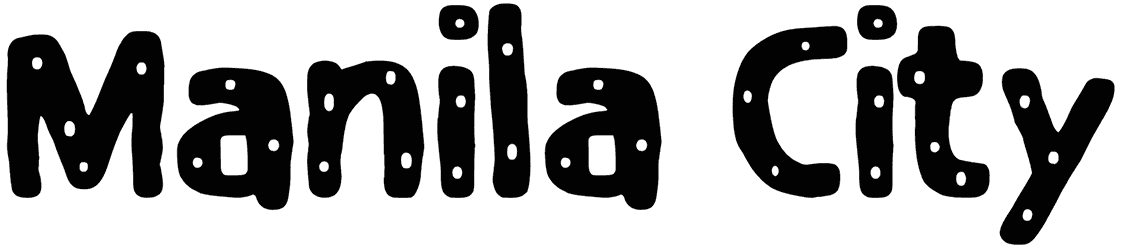
Manila City Font
If you want to create a unique feeling in the audience with your visual identity, Manila City can be a way to achieve your goal. The luminous dots inside this decorative font can create a strange glow for your ordinary d…
If you want to create a unique feeling in the audience with your visual identity, Manila City can be a way to achieve your goal. The luminous dots inside this decorative font can create a strange glow for your ordinary designs and turn them into a masterpiece.
In addition, this fancy font‘s sincere and unassuming design will assure you that you will receive a positive response from customers, and you will succeed in designing the covers of children’s books or albums.
Manila City.